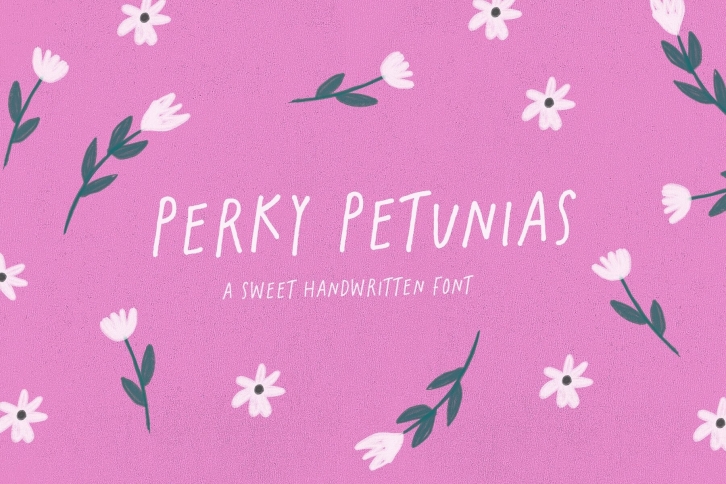
From the intuitive hands of renowned designer Nicky Laatz, we unveil a captivating creation, "Perky Petunias". This charming hand-lettered font is breath of fresh air in a world of digital design. With all-caps lettering that presents varying upper and lowercase characters, Perky Petunias is a playful yet professional addition to any designer's arsenal. As ideal for graphic designers seeking a touch of nostalgia and modernity in their designs, as it is for marketing firms striving to enchant their audiences, this unique font is an elegant amalgamation of style and functionality.
True to its name, Perky Petunias brings a burst of cheerful zest to all who encounter it. However, do not be fooled by its playful demeanor, for this illuminating new typography collection boasts of an incredible versatility. Its well-crafted perfection adds a layered depth to design works, making it an excellent choice for all initiatives- from branding projects to social media posts to standalone prints.